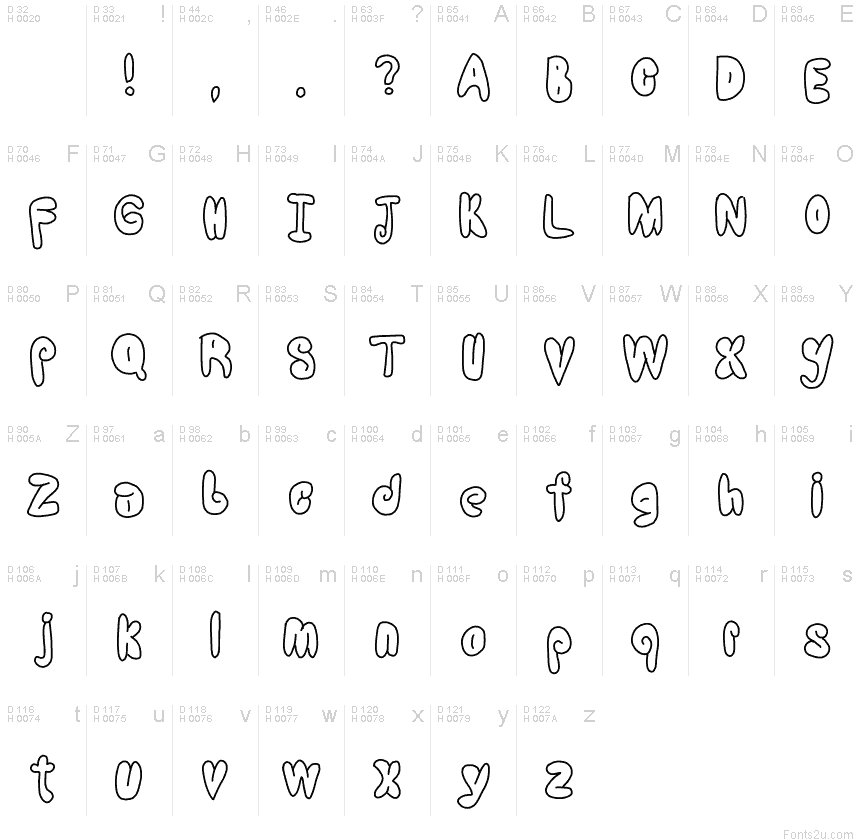
cool balloons
Who doesn't like balloons? (If you don't, then strangely enough, I understand. I was terrified of balloons when I was little. Still though. Now I think balloons are great. They remind me of unicorns and butterflies and rainbows and cupcakes.)